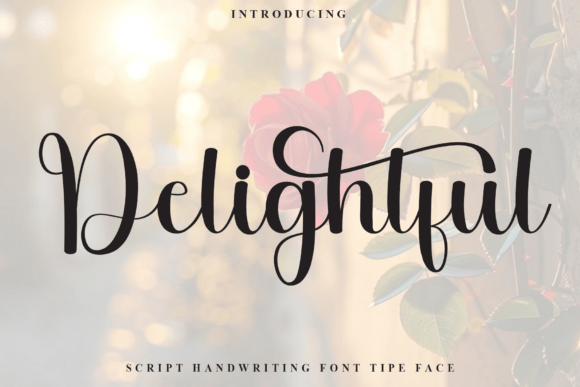
Introducing Delightful Font: The Perfect Choice for Creative and Casual Designs
In the world of typography, fonts play a crucial role in conveying the tone and personality of a design. When it comes to creating a warm, friendly, and approachable feel, the Delightful font is an excellent choice. This casual and creative font is designed to add a touch of playfulness and uniqueness to any design, making it perfect for personal projects, invitations, social media graphics, and more.
The Characteristics of Delightful Font
The Delightful font is characterized by its round, playful strokes that create a relaxed and approachable feel. The font’s charming, hand-drawn aesthetic adds a fun and unique touch to any design, making it stand out from more traditional and formal fonts. The font’s casual and creative vibe makes it an excellent choice for designers who want to add a personal touch to their work.
The Benefits of Using Delightful Font
So, why choose the Delightful font for your design projects? Here are just a few benefits of using this delightful font:
- Warm and Friendly Tone: The Delightful font is designed to convey a warm and friendly tone, making it perfect for designs that require a personal touch.
- Playful and Unique: The font’s playful and unique aesthetic adds a fun touch to any design, making it stand out from more traditional fonts.
- Versatile: The Delightful font is versatile and can be used for a wide range of design projects, from personal invitations to social media graphics.
- Easy to Read: The font is easy to read, making it perfect for designs that require a clear and concise message.
How to Use Delightful Font in Your Designs
Using the Delightful font in your designs is easy. Here are a few tips to get you started:
- Pair it with Other Fonts: The Delightful font can be paired with other fonts to create a unique and creative design. Try pairing it with a sans-serif font for a modern look or a serif font for a more traditional look.
- Use it for Headings and Titles: The Delightful font is perfect for headings and titles. Use it to add a touch of personality to your design and make it stand out.
- Add a Personal Touch: The Delightful font is designed to add a personal touch to your design. Use it to create unique and creative designs that reflect your personality.
Delightful Font in Digital Design
The Delightful font is not just limited to print design. It can also be used in digital design to add a touch of personality to your website, social media graphics, and more.
Here are a few ways to use the Delightful font in digital design:
- Website Headings: Use the Delightful font to create unique and creative headings for your website.
- Social Media Graphics: The Delightful font is perfect for social media graphics. Use it to create eye-catching graphics that reflect your brand’s personality.
- Digital Invitations: The Delightful font is perfect for digital invitations. Use it to create unique and creative invitations that reflect your personality.
Delightful Font in Graphic Design
The Delightful font is a great addition to any graphic design project. Here are a few ways to use the Delightful font in graphic design:
- Logos: The Delightful font can be used to create unique and creative logos that reflect your brand’s personality.
- Brochures: Use the Delightful font to create eye-catching brochures that reflect your brand’s personality.
- Posters: The Delightful font is perfect for posters. Use it to create unique and creative posters that reflect your personality.
In conclusion, the Delightful font is a great choice for designers who want to add a touch of personality to their designs. Its warm and friendly tone, playful and unique aesthetic, and versatility make it perfect for a wide range of design projects. Whether you’re working on a personal project, creating social media graphics, or designing a website, the Delightful font is a great choice.